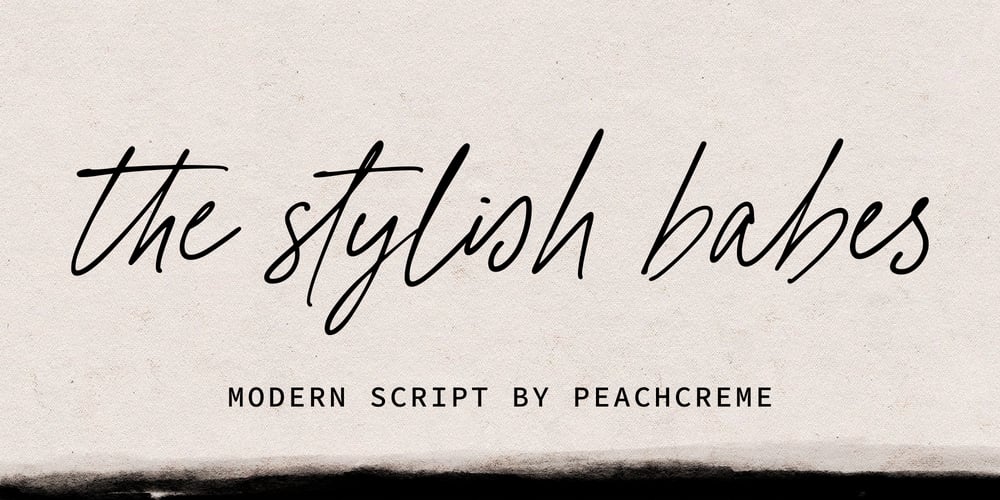
The Stylish Babes Font Family was designed by Gulya Yeap and published by PeachCreme. The Stylish Babes contains 1 styles and family package options. Here’s our latest font release: the stylish babes! A messily whimsical script ready to brighten up your light-hearted projects. Inspired by texts written loosely by hand, this handwritten font is loaded with careless ligatures. There are 144 sloppy ligatures that will add a real authentic feel to your designs. the stylish babes is a perfect choice for handwritten notes, greeting cards, packaging, and of course, fun branding.